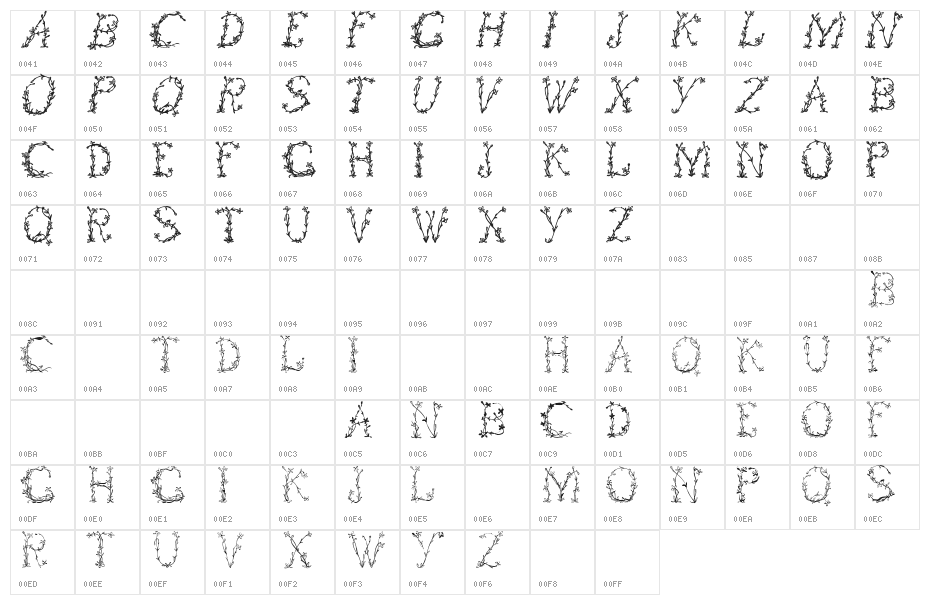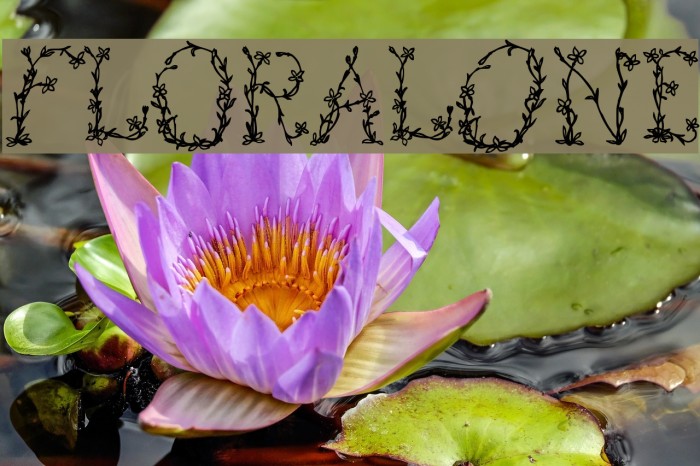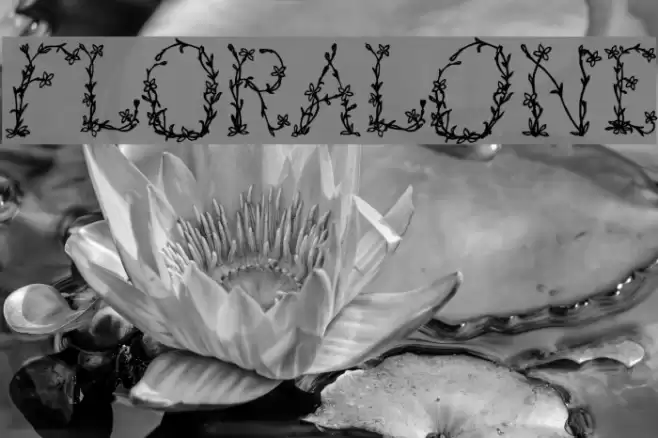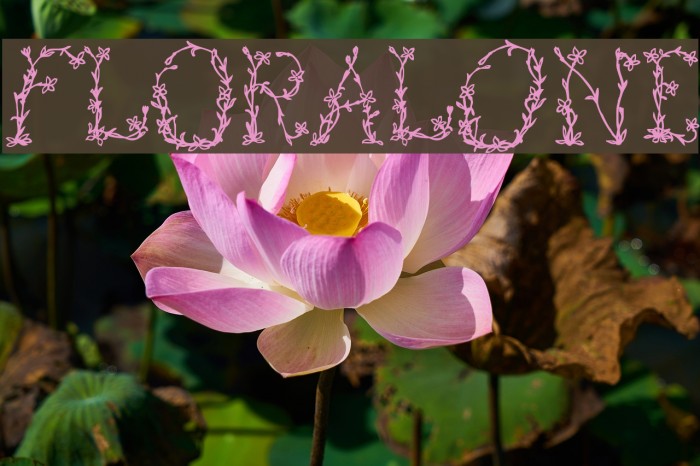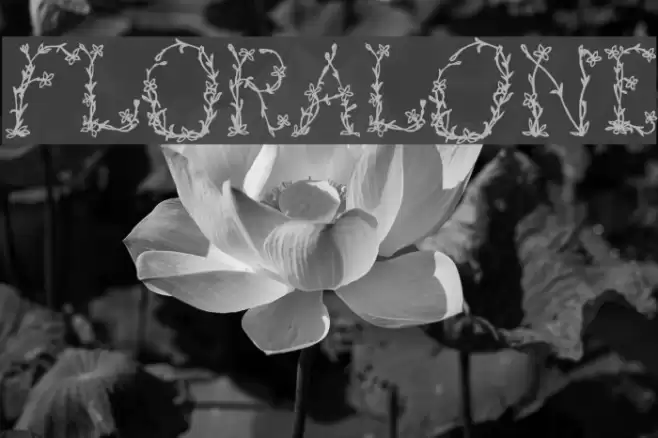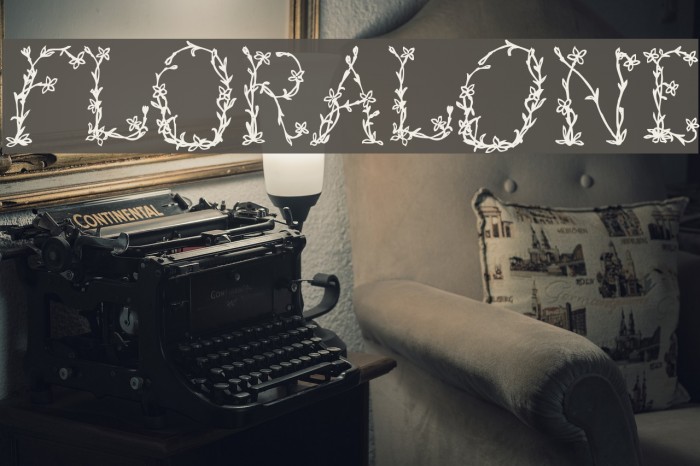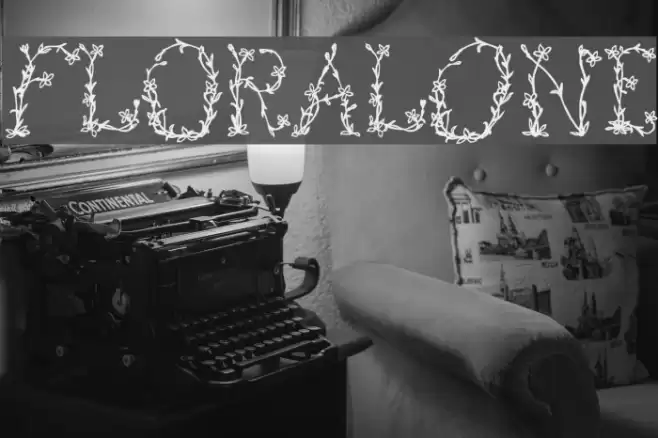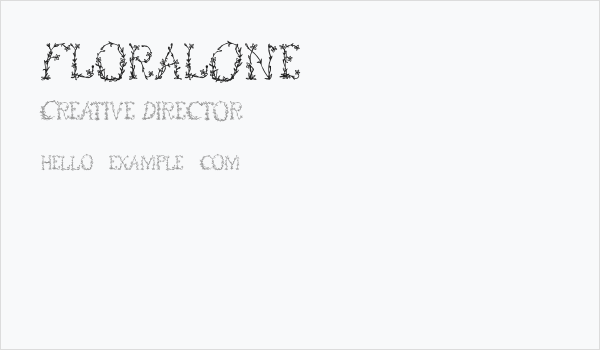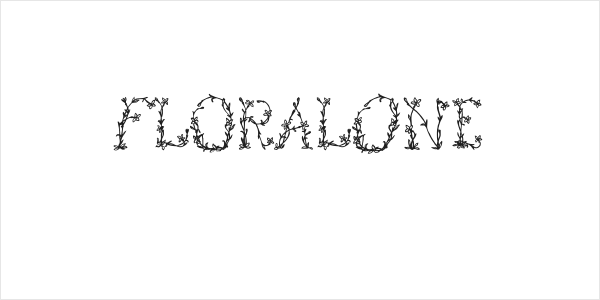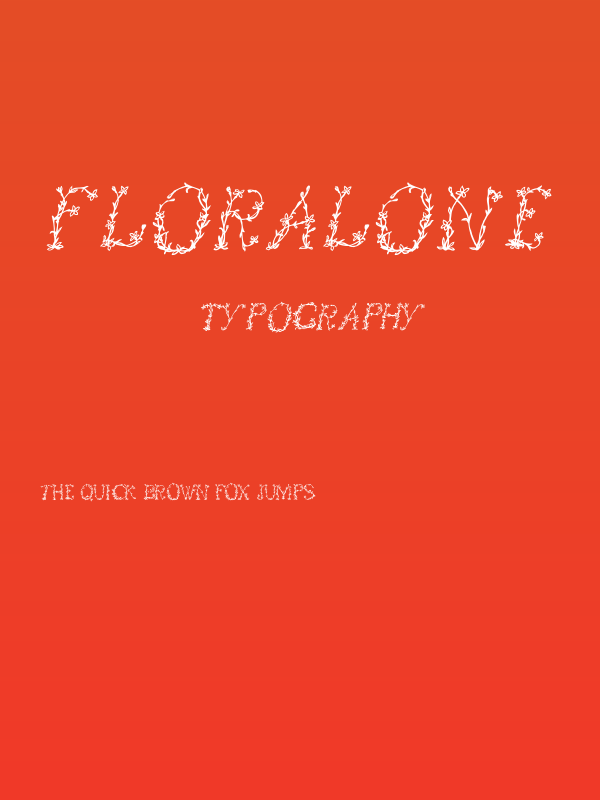
FloralOne Font
FloralOne Description
This font features a unique and intricate design where each letter is adorned with floral elements, creating a whimsical and decorative appearance. The letters are composed of intertwining vines and flowers, giving a natural and organic feel. The design is highly detailed, with each character showcasing a distinct floral pattern that adds to its charm. This font is ideal for projects that require a touch of elegance and nature-inspired aesthetics.
| Proposed Projects | Ideal for wedding invitations, greeting cards, botanical-themed branding, and decorative posters. |